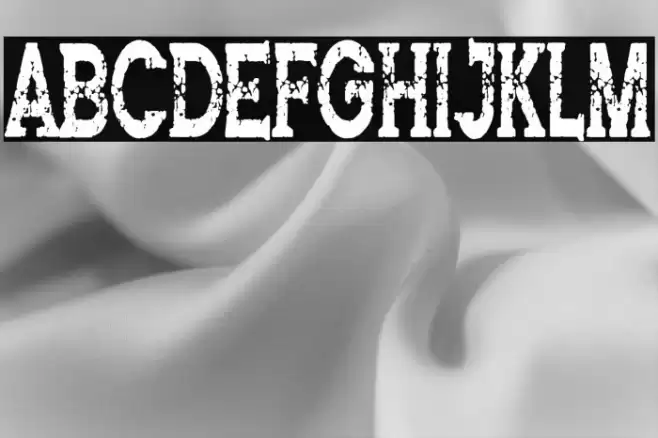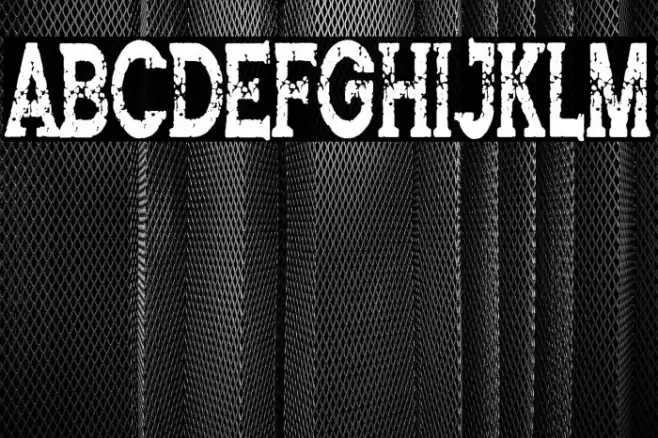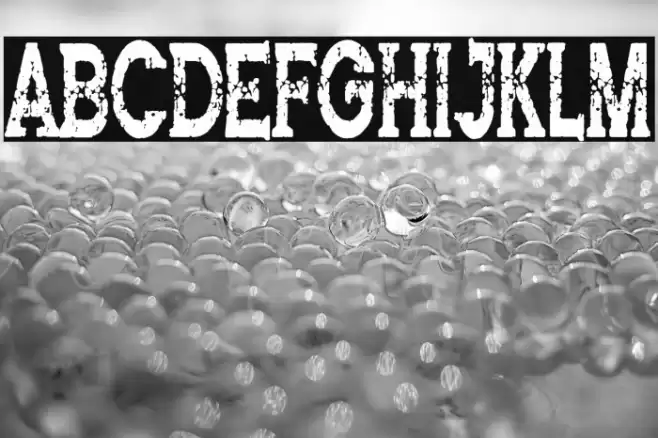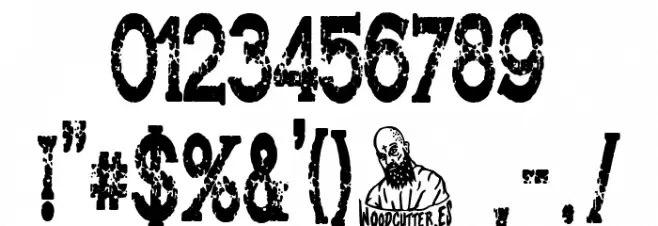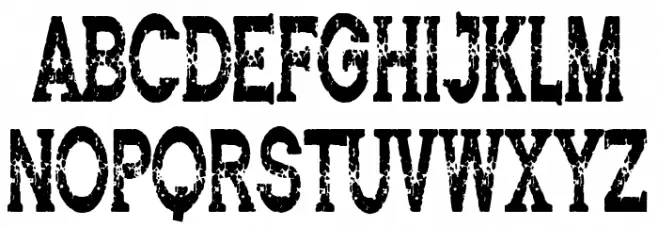
Eutopia Embassador Font
Eutopia Embassador Description
This font features a distressed, grunge style with a bold and rugged appearance. The characters are heavily textured, giving them a worn and weathered look that adds a sense of depth and character. The uppercase and lowercase letters maintain a consistent style, with a slightly rough edge that enhances the overall aesthetic. The numbers and special characters follow the same design, ensuring a cohesive look across all elements. This font is ideal for projects that require a bold, impactful statement with a touch of vintage or industrial flair.
A bold, distressed font with a rugged, grunge aesthetic from Uncategorized fonts.
- Font: Eutopia Embassador
- Proposed Projects: Ideal for posters, album covers, branding for edgy or vintage-themed products, and any design needing a bold, textured look.
- Overall Style: Vintage, Grunge
Eutopia Embassador UPPERCASE
Eutopia Embassador LOWERCASE
Eutopia Embassador OTHER CHARS